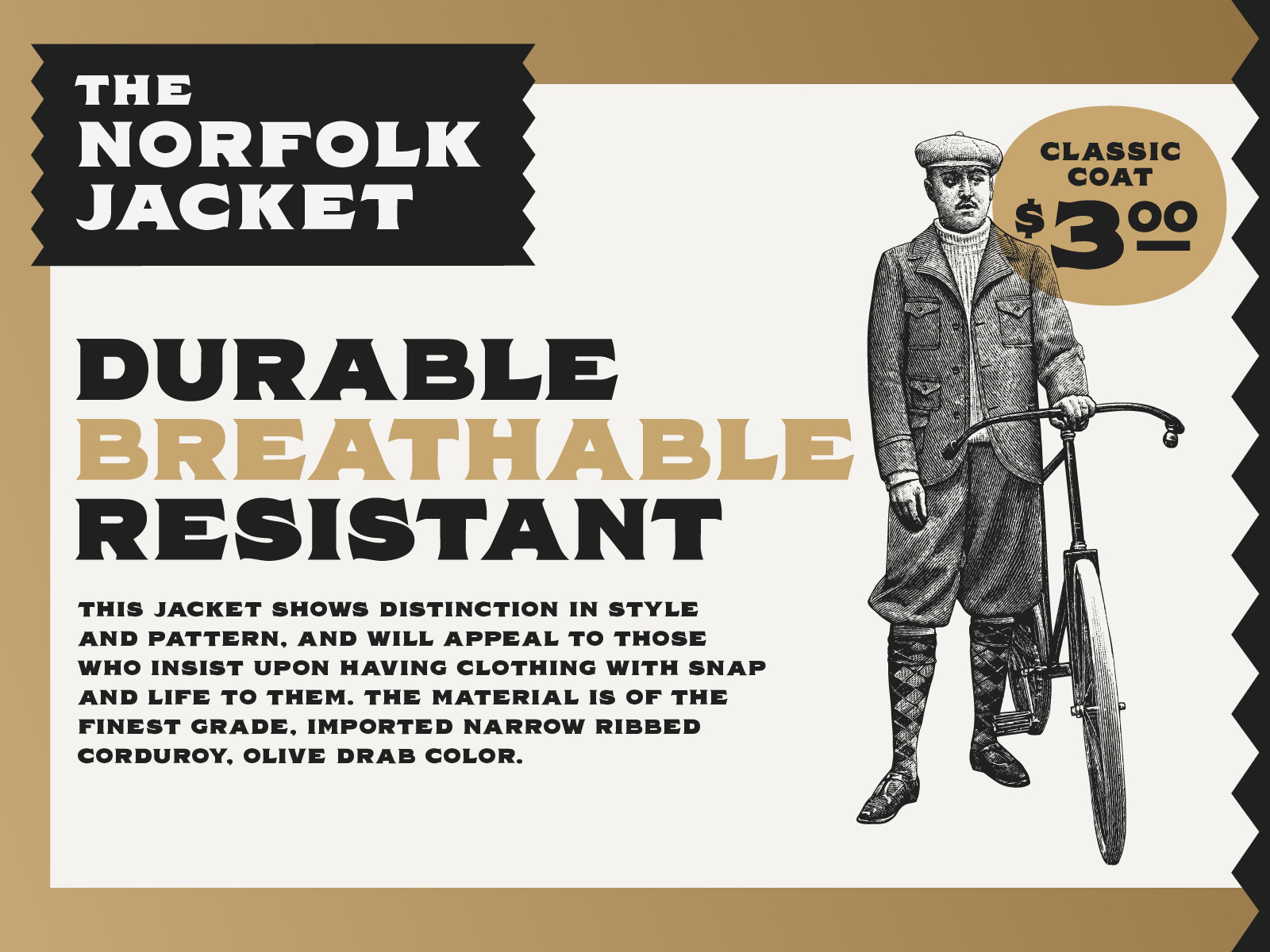
Norfolk - Vintage Display Font
Norfolk is a vintage-inspired font based on the styles found on packaging from the early 1900's. It evokes a genuine and timelessly crafted look from this period.
Three styles are included in this family: Fill, Inline and Outline. The styles can be used together or layered to create a variety of vintage looks for any project. Norfolk works well as a header or title for branding, packaging or publications.